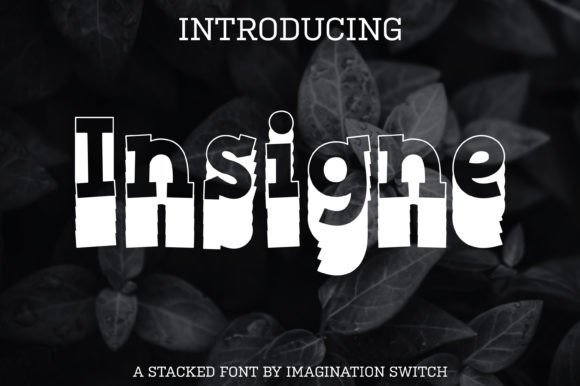
In the realm of digital artistry, where elegance and charm converge, lies a font family poised to redefine your creative vision: Insigne Font. This display font, a masterpiece crafted by the ingenious Imagination Switch, stands as a testament to the enchanting power of stacked typography. Each letter, a carefully chiseled gem, emerges from the canvas with a breathtaking three-dimensional allure, captivating the beholder with its refined presence.
Immerse yourself in the boundless possibilities that Insigne Font presents. Its inherent versatility allows it to seamlessly adapt to a myriad of design endeavors, effortlessly enhancing their visual impact. Unleash your imagination and let Insigne Font elevate the allure of your logos, posters, social media posts, and website designs. Its meticulously crafted characters possess an innate ability to command attention, leaving an indelible mark on the minds of your audience.
Indulge in the allure of Insigne Font's stacked style, a visual symphony that orchestrates a harmonious interplay of depth and dimension. Each letter, meticulously designed with precision, dances across the digital stage, captivating the senses with its refined elegance. Allow Insigne Font to transform your creative projects into captivating expressions of artistic excellence, leaving your audience spellbound and yearning for more.
With Insigne Font at your disposal, transcend the boundaries of ordinary typography and embark on a journey into the realm of visual enchantment. Its intrinsic charm will effortlessly elevate your designs, imbuing them with a sense of sophistication and timeless allure. Discover the limitless potential of Insigne Font and witness the transformation of your creative vision into a symphony of visual delight.